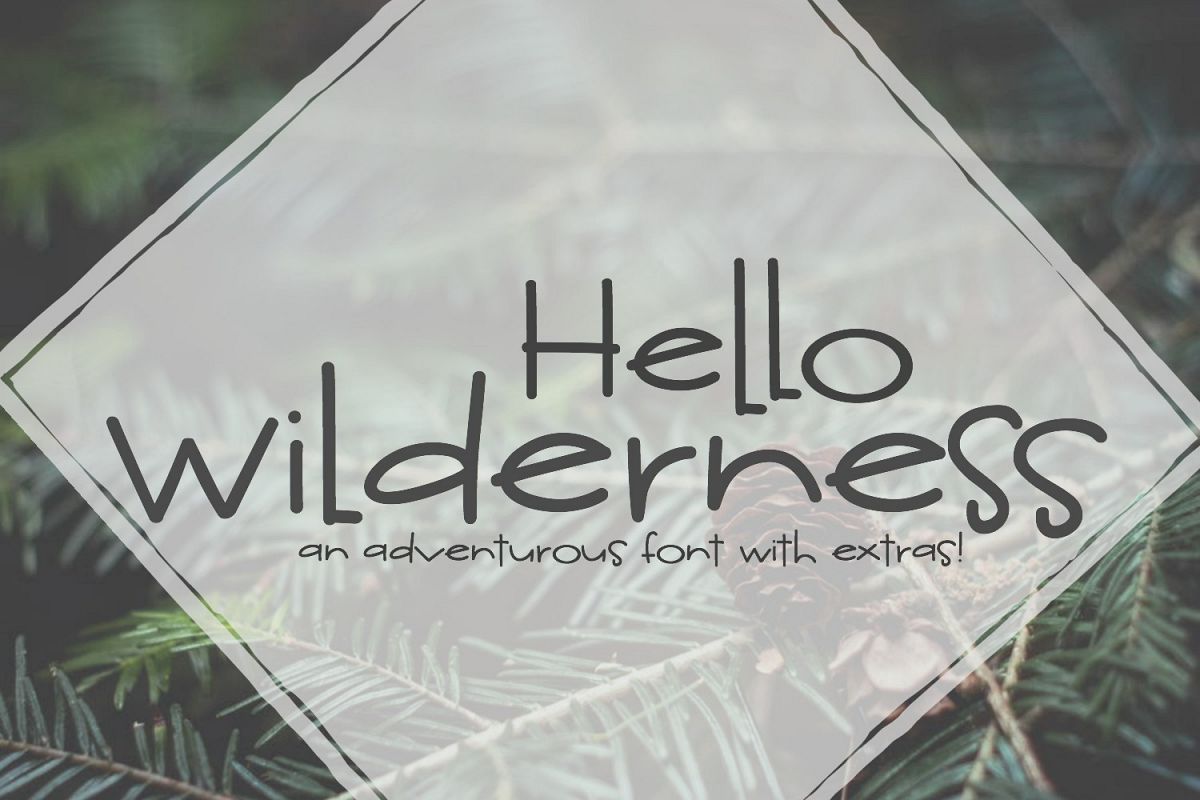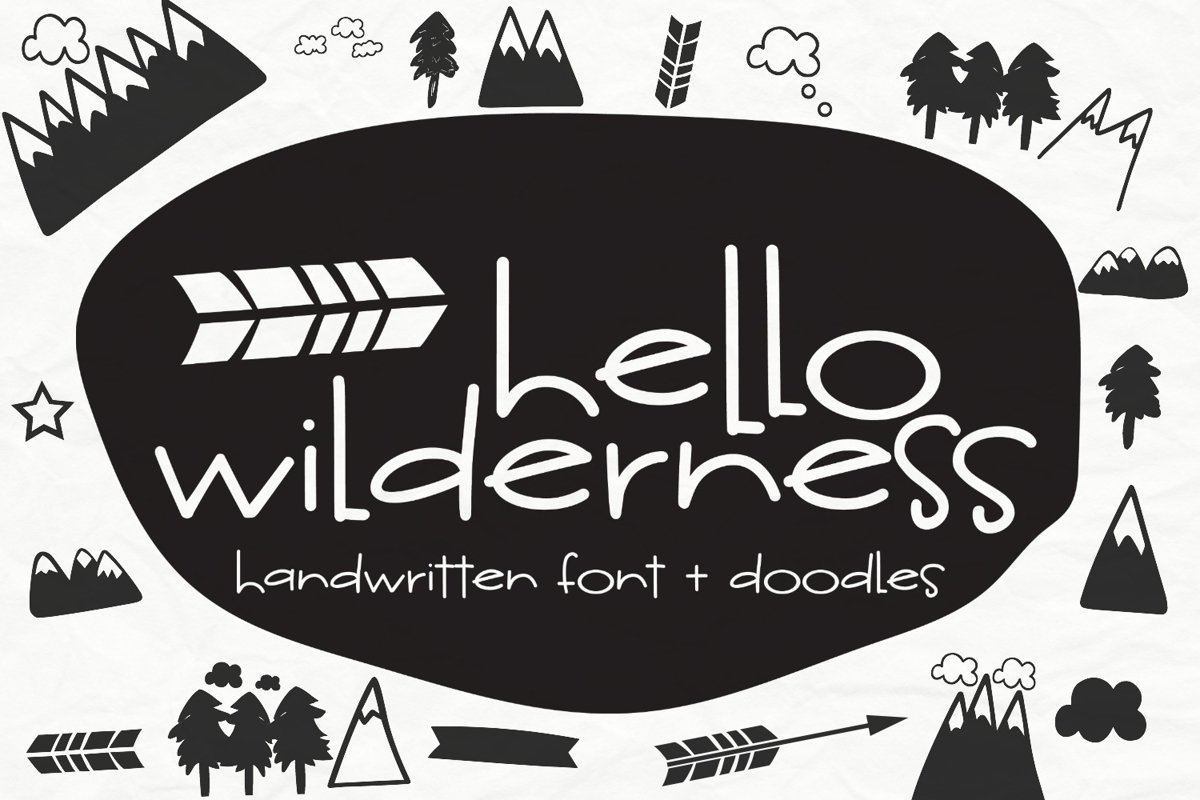
Hello Wilderness Font and Doodles
Introducing Hello Wilderness Handwritten Font with Doodles! This fun lovable handwritten font includes mountain doodles and is perfect for many design projects! I've made this handwritten font for crafters, making it as smooth as possible, reducing the amount of nodes in each glyph to ensure optimal cutting with Cricut, Silhouette or other craft machines.
SS Hello Wilderness Sans
SS Hello Wilderness Extras <--- This is where the doodles are :)